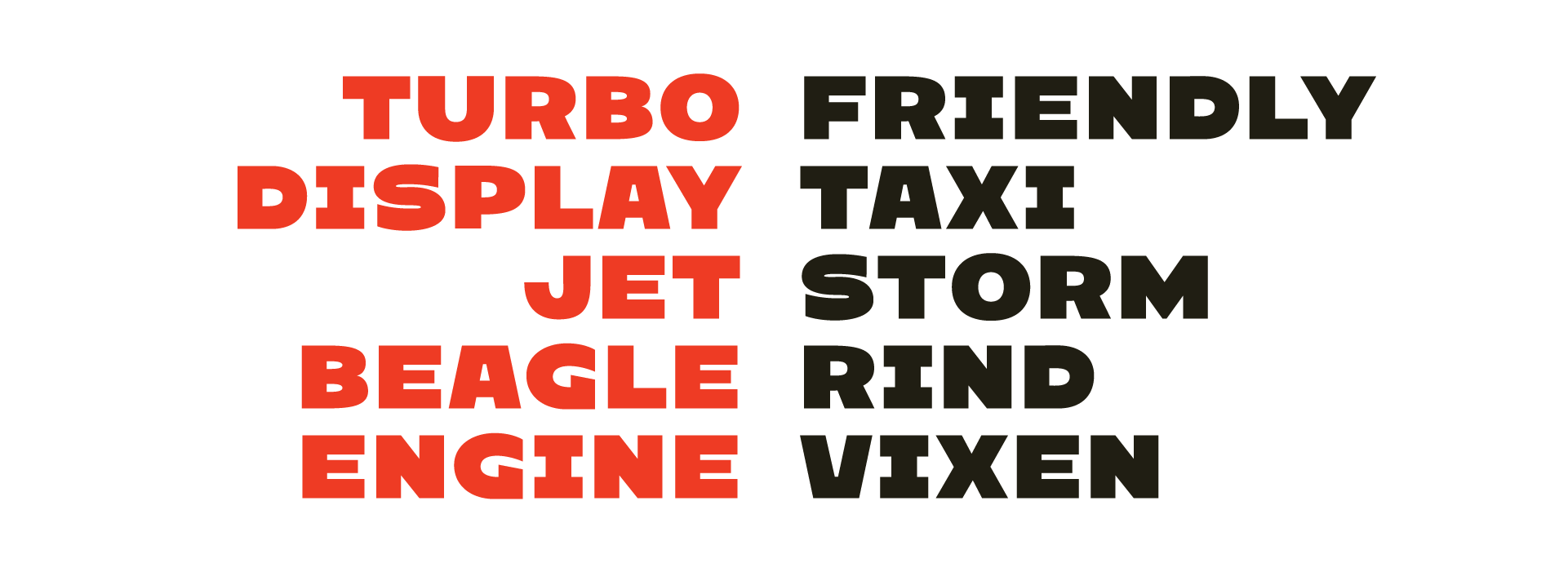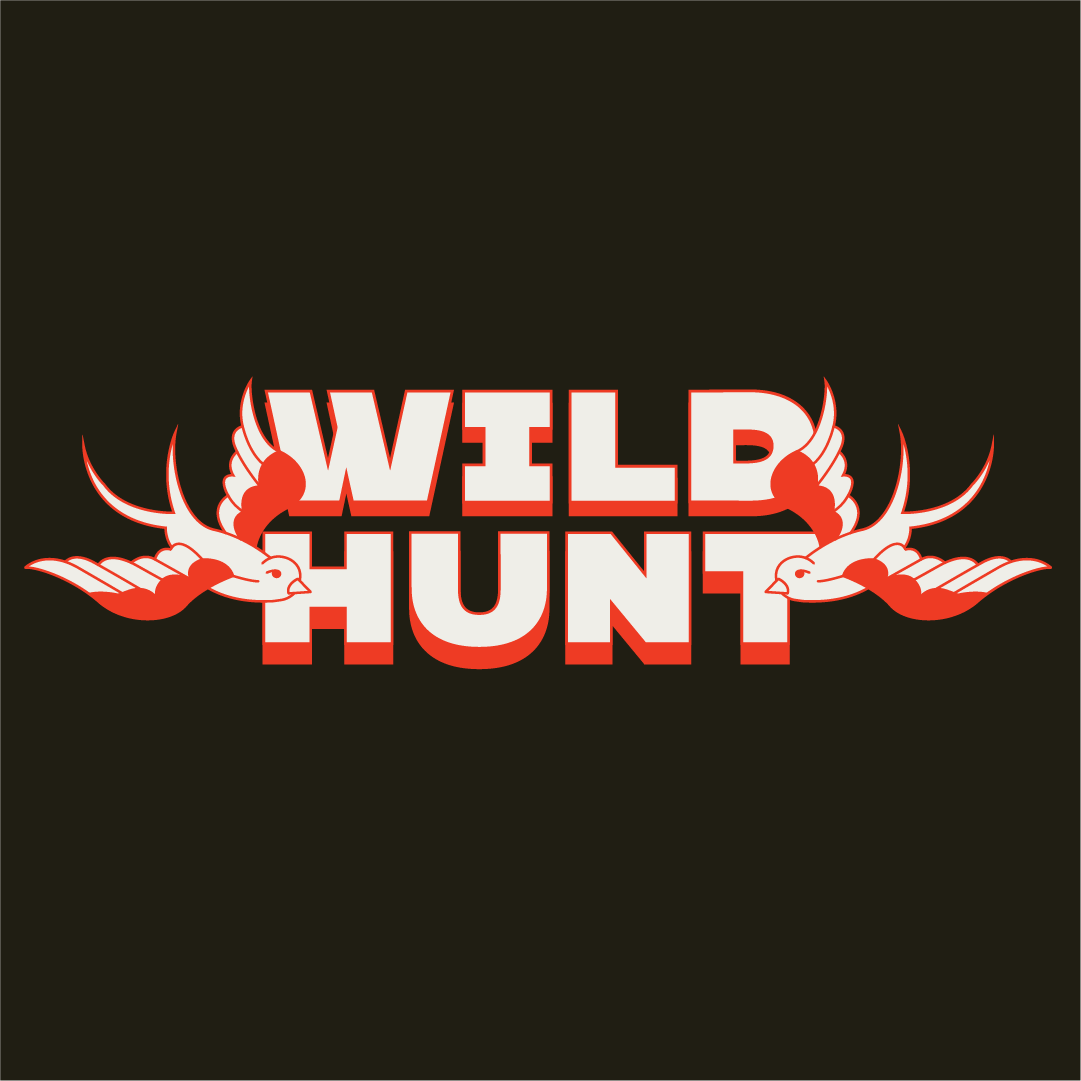
Afterburner $25.00 An extended, heavy-weight display face, YRT Afterburner takes cues from the grotesque typefaces of the past with a modern eye. Yeahright Type Studio › Afterburner Add To Cart Added! An extended, heavy-weight display face, YRT Afterburner takes cues from the grotesque typefaces of the past with a modern eye. Commercial License Add-On from $100.00 Licenses: Select Licenses 1 2 3 4 5 6 7 8 9 10 Add Added!